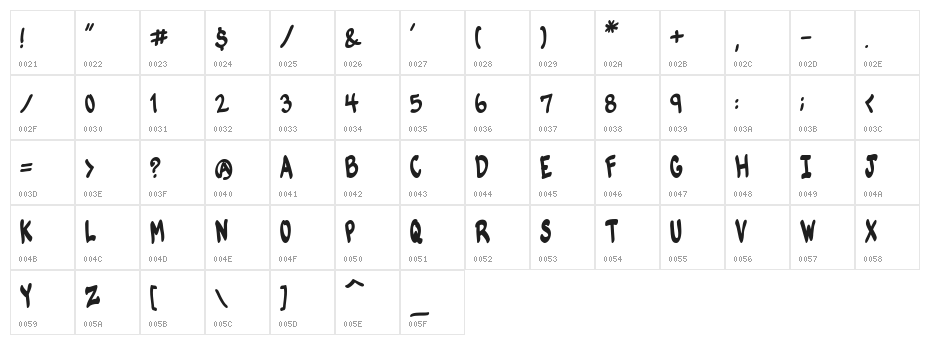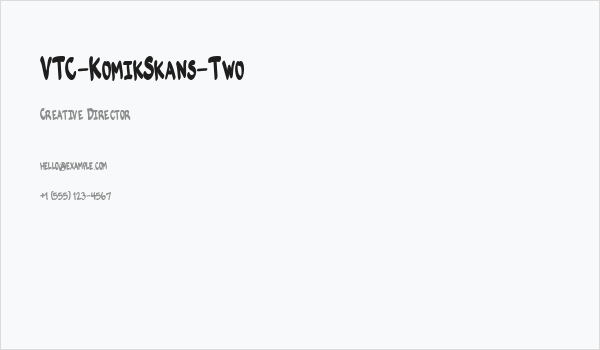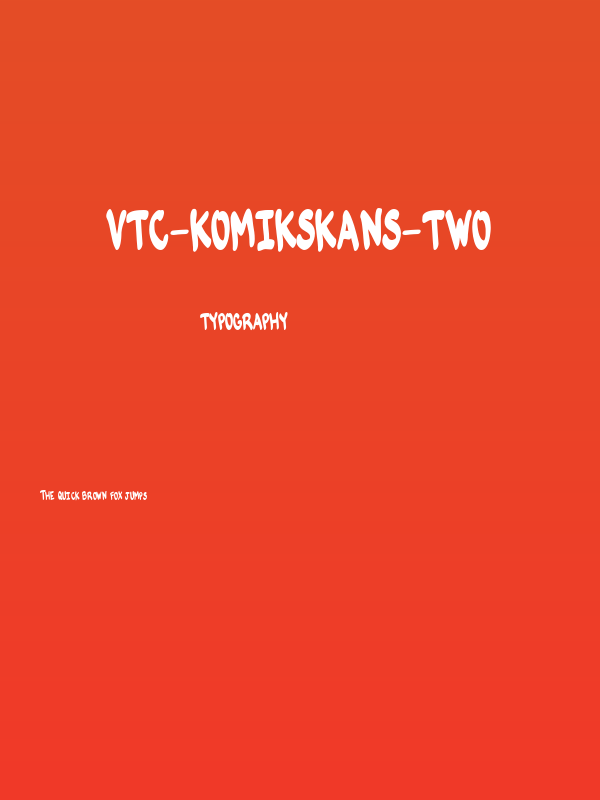
VTC-KomikSkans-Two Font
VTC-KomikSkans-Two Description
This playful and bold font exudes a comic-style charm, characterized by its thick, rounded strokes and informal, hand-drawn appearance. The letters are slightly irregular, adding to the whimsical and approachable feel. It features a consistent stroke width, which contributes to its bold and impactful presence. The font is highly legible, making it suitable for both large and small text applications. Its unique style is reminiscent of comic book lettering, making it ideal for projects that require a fun and engaging aesthetic.
| Overall Style | Playful, Comic |
| Proposed Projects | Perfect for comic books, children's books, playful branding, posters, and any project needing a fun, informal touch. |